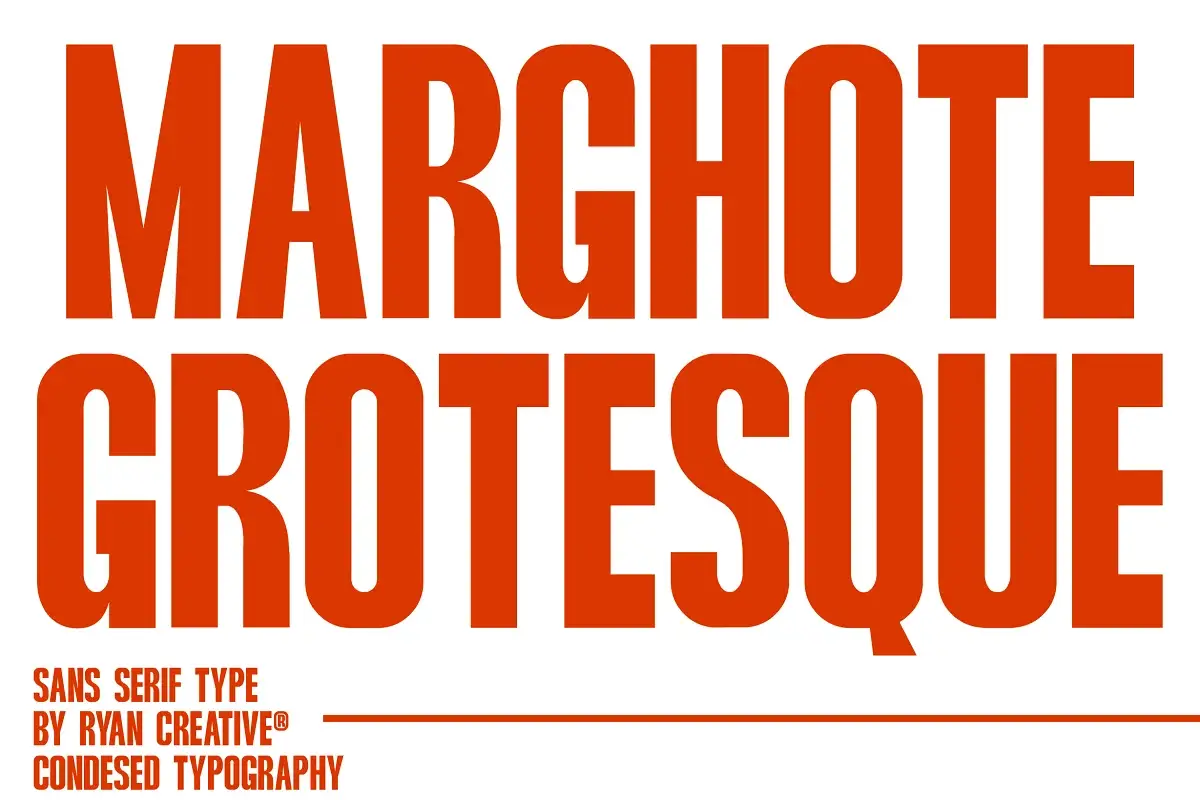
Looking to infuse a touch of minimalist elegance into your designs? Meet Marghote Free Grotesk Sans Type Font that effortlessly combines simplicity with boldness in its sleek, grotesque style. With its condensed and bold structure, Marghote offers a striking yet easily readable appearance that’s perfect for a wide array of modern and contemporary designs.
Designed for versatility, Marghote finds its place seamlessly across various mediums, from fashion-related media to posters, magazines, digital typography, and more. Its standout features include:
- Uppercase
- Support for Foreign Characters, Numbers, and Punctuation
- Regular style
Marghote isn’t just a font it’s a gateway to contemporary, stylish typography that’s both accessible and versatile. Experience the seamless fusion of boldness and simplicity in your design projects with Marghote!
Marghote Free Grotesk Sans Type Font